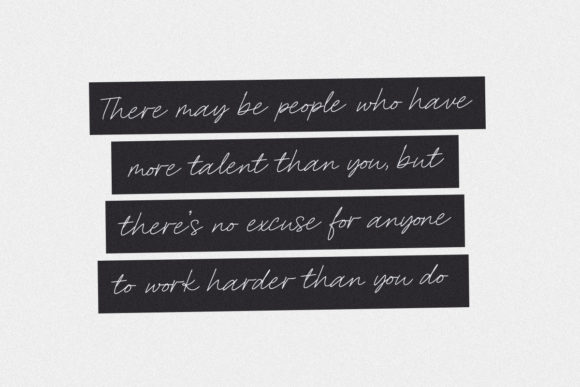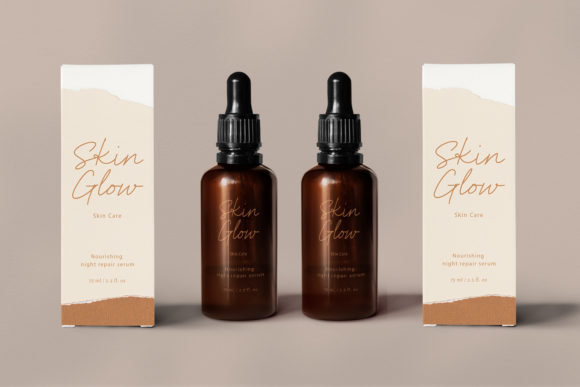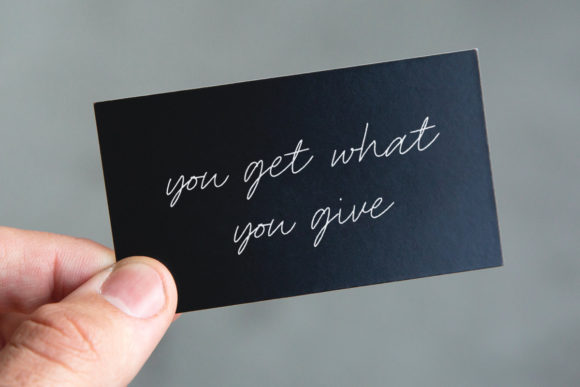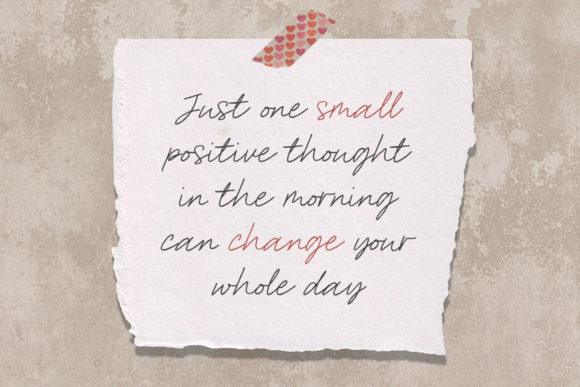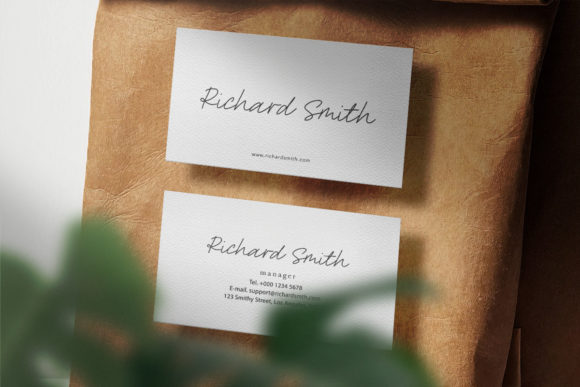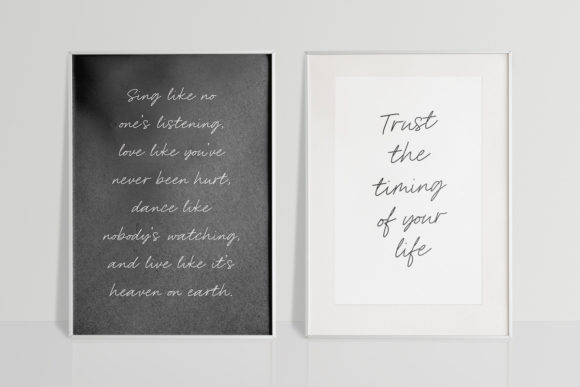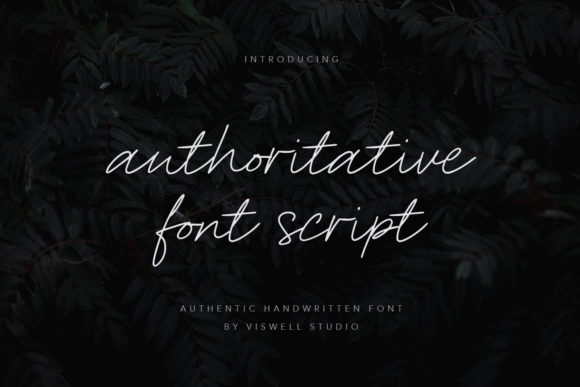
Introducing Authoritative: The Elegant Script Font for Your Creative Projects
Are you looking for a font that exudes elegance, sophistication, and refinement? Look no further than Authoritative, a stunning script font that is sure to elevate your designs to new heights. With its thin lettering and graceful curves, Authoritative is the perfect choice for creating beautiful wedding invitations, stationary art, social media posts, and more.
The Characteristics of Authoritative
Authoritative is a script font that boasts a unique blend of elegance and simplicity. Its thin lettering gives it a delicate, refined look that is perfect for creating sophisticated designs. The font’s graceful curves and flowing lines add a touch of whimsy and romance, making it ideal for projects that require a personal touch.
What Makes Authoritative So Versatile?
One of the things that sets Authoritative apart from other script fonts is its versatility. Whether you’re creating a wedding invitation, a social media post, or a piece of stationary art, Authoritative is the perfect choice. Its elegant design and flowing lines make it suitable for a wide range of projects, from formal events to casual gatherings.
Using Authoritative for Wedding Invitations
Wedding invitations are one of the most popular uses for Authoritative, and for good reason. The font’s elegant design and refined look make it perfect for formal wedding invitations, while its playful curves and lines add a touch of romance and whimsy. Whether you’re planning a traditional or modern wedding, Authoritative is the perfect choice for creating beautiful, eye-catching invitations that will set the tone for your special day.
Creating Beautiful Stationary Art with Authoritative
Authoritative is also a popular choice for creating beautiful stationary art, including greeting cards, thank-you notes, and more. The font’s elegant design and flowing lines make it perfect for adding a personal touch to your correspondence, while its thin lettering gives it a delicate, refined look that is sure to impress.
Using Authoritative for Social Media Posts
In addition to its use in print design, Authoritative is also a great choice for social media posts. The font’s elegant design and refined look make it perfect for creating eye-catching posts that will stand out in a crowded feed. Whether you’re promoting a product, sharing a special announcement, or simply connecting with your followers, Authoritative is the perfect choice for adding a touch of sophistication and elegance to your social media posts.
Tips for Using Authoritative in Your Designs
Here are a few tips for using Authoritative in your designs:
• Use Authoritative for headlines and titles to add a touch of elegance and sophistication to your designs.
• Pair Authoritative with bold, modern fonts to create a striking contrast.
• Experiment with different colors and textures to add depth and interest to your designs.
• Use Authoritative to add a personal touch to your correspondence, including greeting cards and thank-you notes.
In conclusion, Authoritative is a stunning script font that is sure to elevate your designs to new heights. With its thin lettering, graceful curves, and elegant design, Authoritative is the perfect choice for creating beautiful wedding invitations, stationary art, social media posts, and more. Whether you’re a designer, crafter, or simply someone who appreciates beautiful typography, Authoritative is a must-have font that is sure to inspire your creativity.